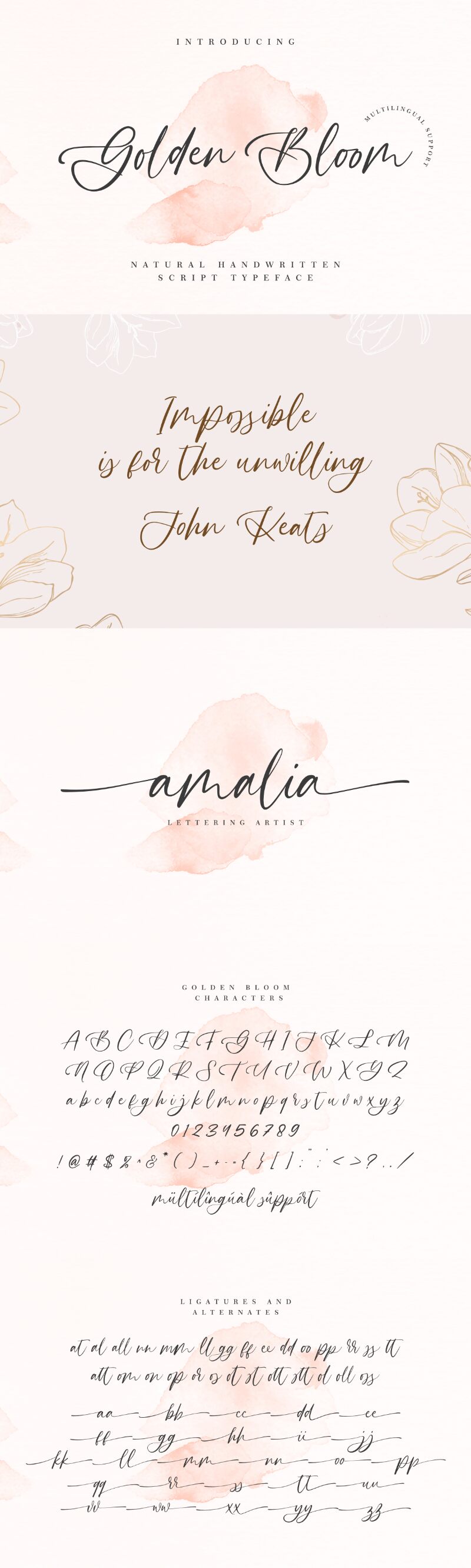
Golden Bloom is a light, natural handwritten font created by Ardian Nuvianto. It's perfect for adding an organic and natural feel to any project. Whether you're creating invitations, posters or cards, Golden Bloom is the perfect choice for a personalised touch. Its delicate and elegant letterforms make it ideal for logos, branding projects and other creative designs that need a little extra charm.